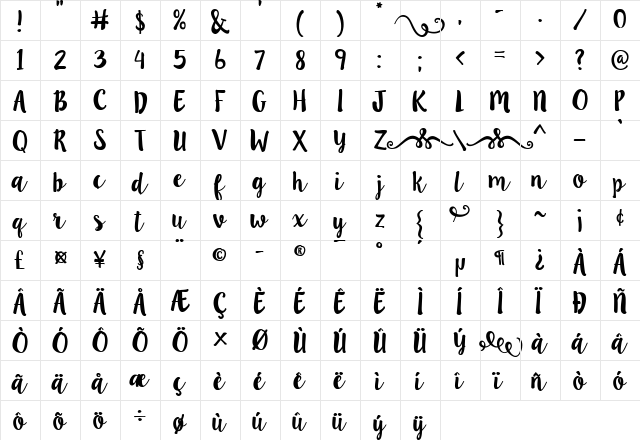
LillyBelle Regular
| Foundry | Emily Spadoni |
| Designer | Emily Spadoni |
Design Context for LillyBelle Typeface
LillyBelle is a composed and adaptable typeface that performs quietly and consistently across a wide range of design contexts.